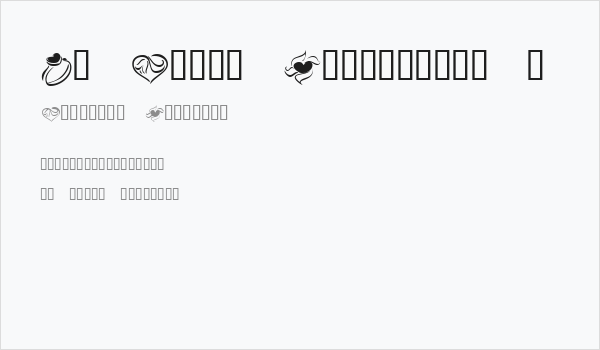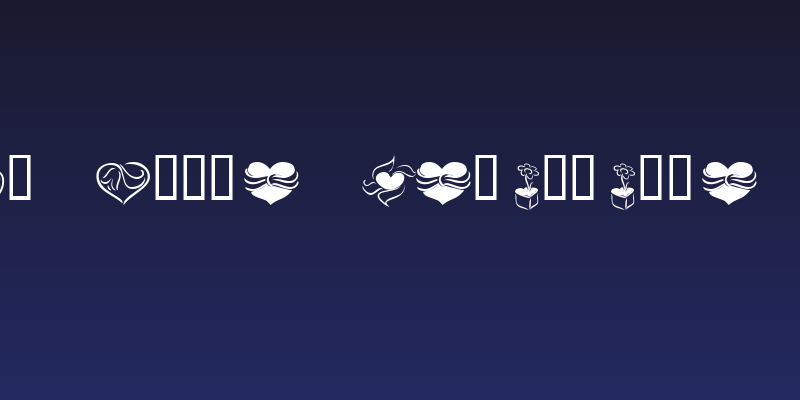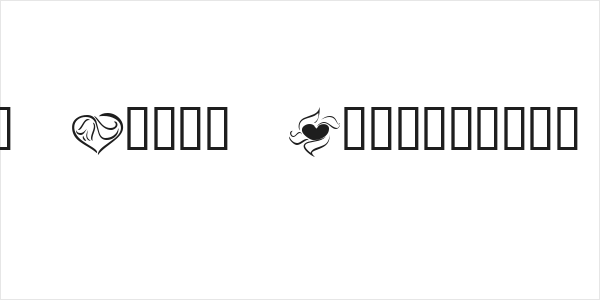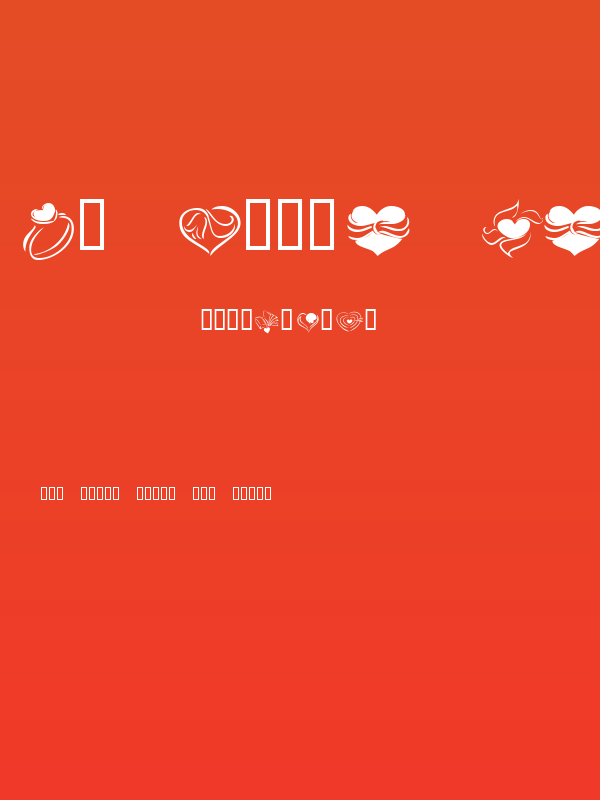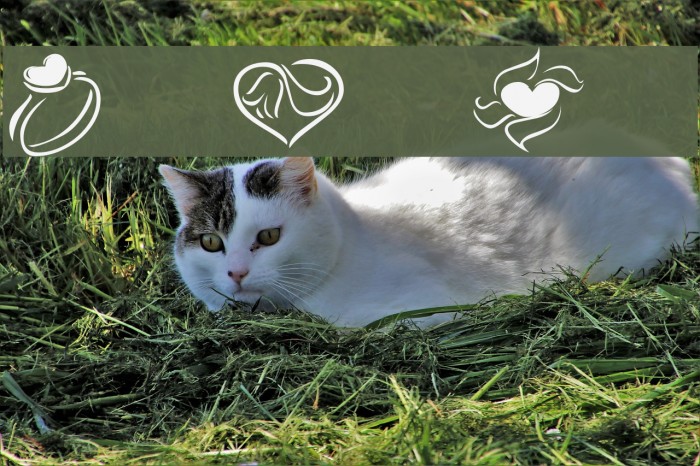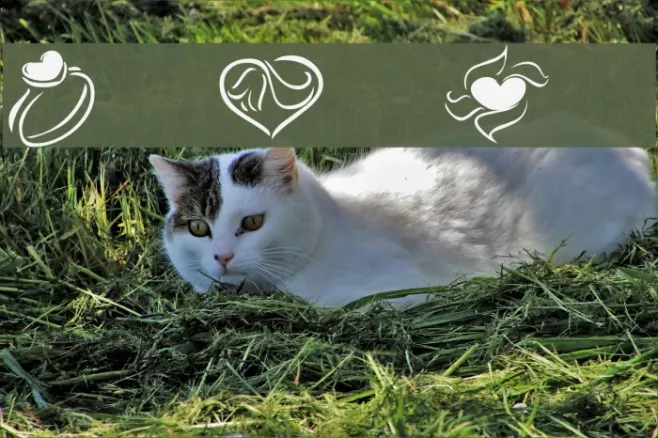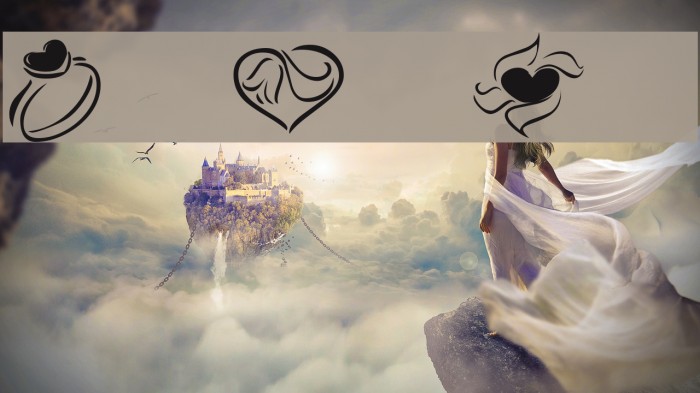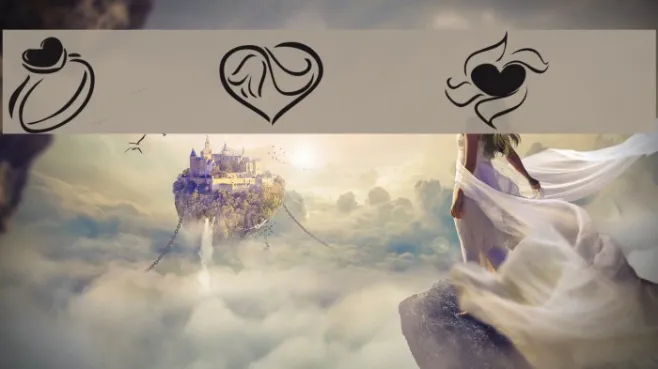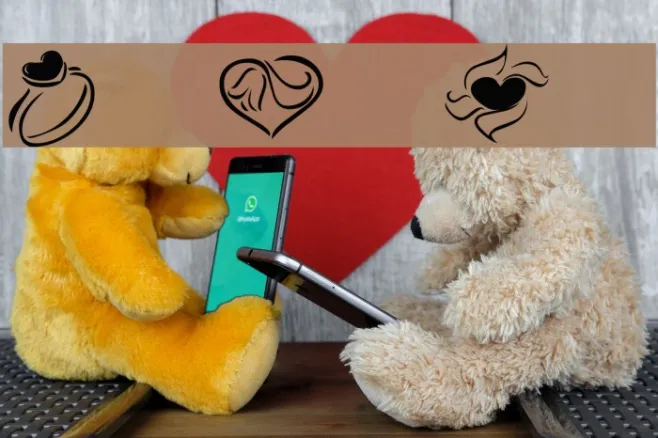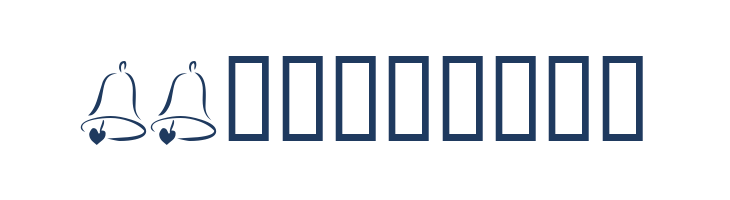
KR Cuori Divertenti 2 Font
This is a decorative font featuring a series of playful heart-themed illustrations. Each character is represented by a unique heart design, incorporating various elements like flowers, ribbons, and abstract shapes. The style is whimsical and artistic, making it ideal for creative projects that require a touch of romance or fun. The characters are bold and visually striking, with a consistent theme throughout the set.
| Use Case | Logos, Decorative elements |
| Proposed Projects | Ideal for greeting cards, wedding invitations, Valentine's Day promotions, and decorative posters. |